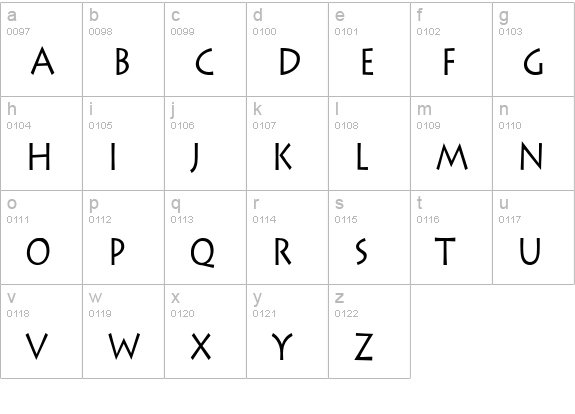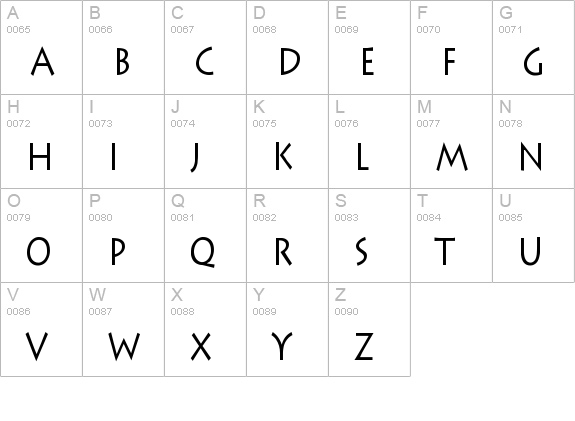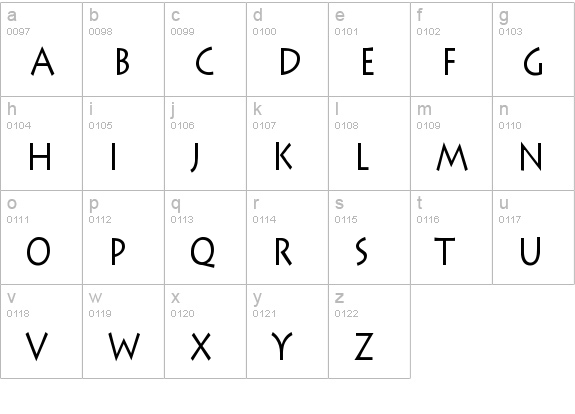
Liste Condensed Normal is the standard, neutral, condensed-width variant in the Liste typeface family \xE2\x80\x94 well suited to general body text, paragraphs, and standard typographic work.
Liste Condensed Normal font is a modern and sleek typeface that exudes sophistication and elegance. Its clean lines and subtle curves make it perfect for a variety of design projects, from branding to editorial design. The condensed style of this font allows it to save space without compromising readability, making it ideal for headlines and titles. What sets Liste Condensed Normal font apart is that it is available for free download at FontsMarket.com. This means that you can easily access this high-quality font to enhance your creative projects without any cost. Whether you are a professional designer or a hobbyist looking to elevate your work, Liste Condensed Normal font offers a versatile and stylish option that will surely impress. Don't miss out on this opportunity to add a touch of sophistication to your designs with this free font download.